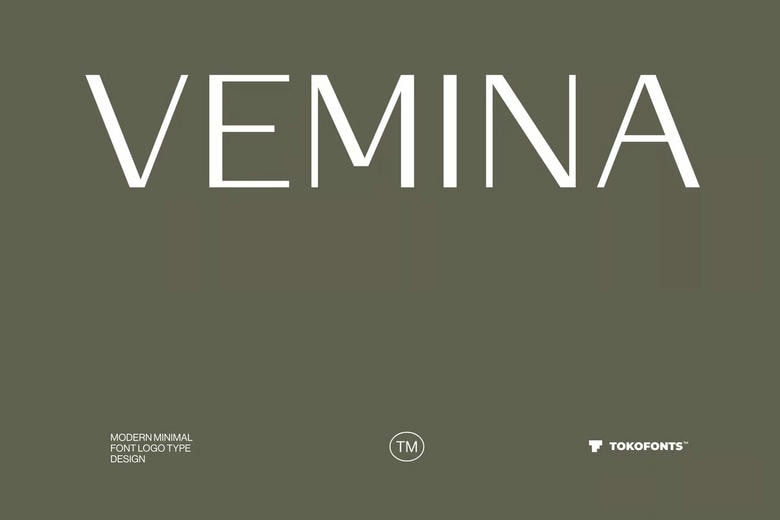
Vemina Font
Vemina Font is a contemporary and stylish display typeface that aims to add a clean and minimal look to logo and branding projects. This font has the classic and classic influence of Helvetica, Montserrat, and Futura with its elegant proportions and clean geometric design but has a modern and new touch. It is ideally applicable to fashion brands, corporate identities, and contemporary visual systems that demand clarity, sophistication, and balance.
Its flexible and versatile style is compatible with a broad spectrum of creative uses, including professional corporate designs and whimsical children designs. The minimal and clean design is very easy to read and has a high display presence, which makes it perfect in logos, branding systems, and contemporary compositions. Vemina is one of the contemporary fonts that are elegant, simple, and functional to produce a strong and memorable visual identity.
Vemina Sans Serif Font